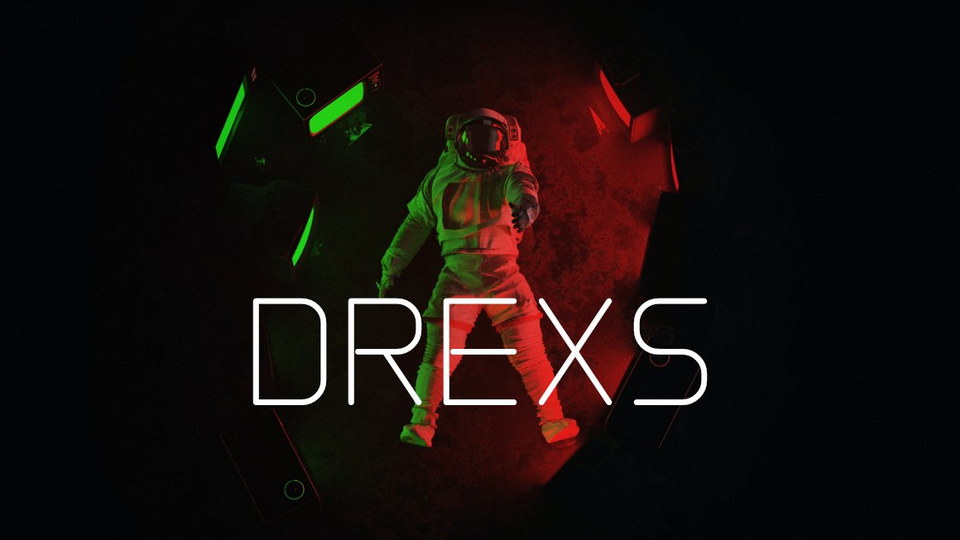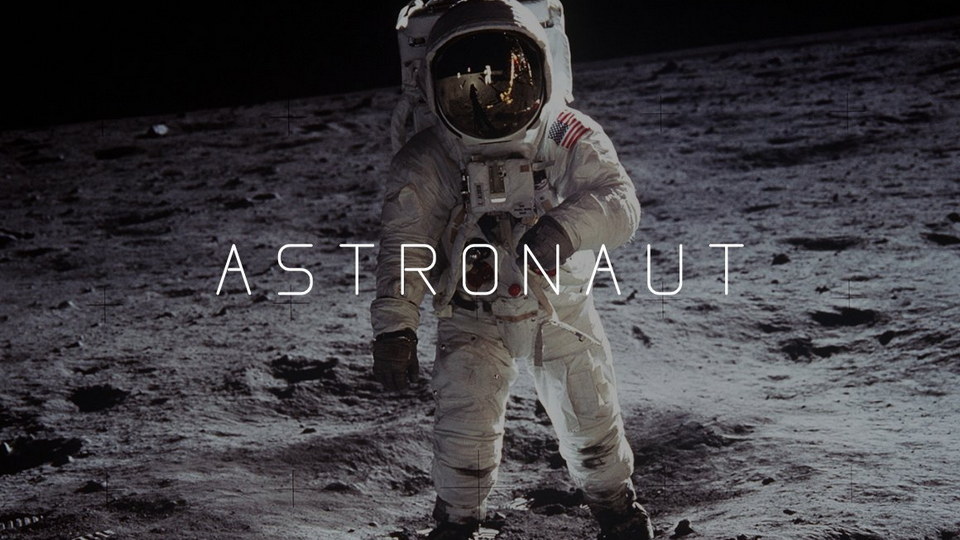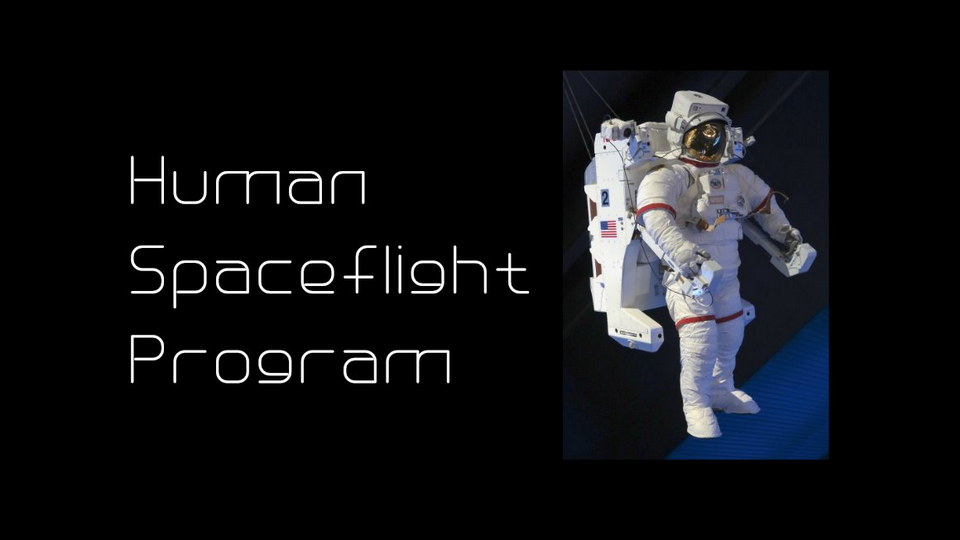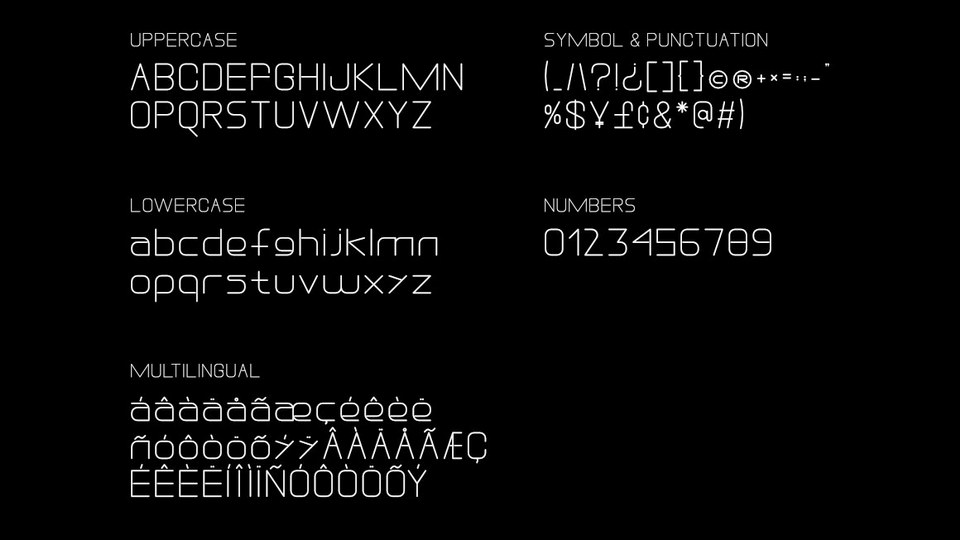
Drexs is a simple, thin and futuristic display font. Whether you use it for designs related to web or sci-fi projects, this font will easily stand out from the crowd.
Great for branding, wordmark, logotype, logo design, header, UI design, etc.